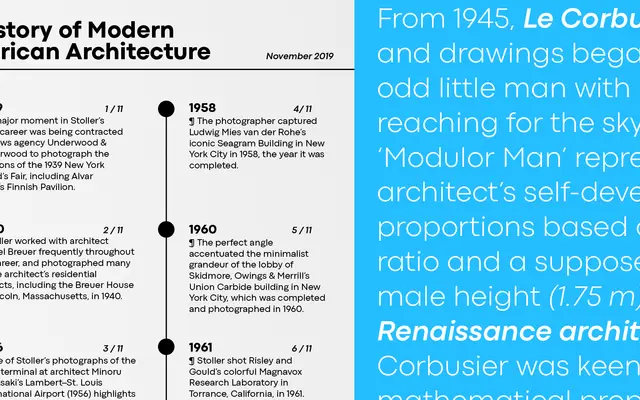
Codec Pro
Zetafonts · Francesco Canovaro, Cosimo Lorenzo Pancini, Andrea Tartarelli · 2019
An eleven-weight geometric sans with built-in stylistic sets that toggle between a cold, constructed look and a warmer, more humanist one.
Originally developed in 2017 and relaunched as Codec Pro, this family spans eleven weights from Thin to Fat, each with an italic, plus two variable font files. Stylistic sets distinguish Codec Cold, with terminals parallel or perpendicular to the baseline, from Codec Warm, which uses open diagonal cuts and softer forms, while logo variants add ligatures and horizontally stretched uppercase characters. Script support covers Latin, Greek and Cyrillic across 214 languages with 1,446 glyphs per style.
Codec Pro is a geometric sans-serif with two core moods: Codec Cold, which uses terminals cut parallel or perpendicular to the baseline for a constructed geometric look, and Codec Warm, which uses open diagonal cuts and humanist shapes for a softer feel.